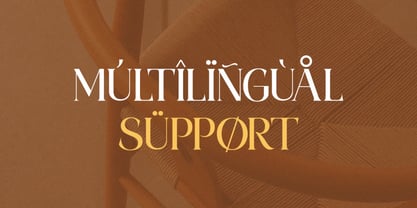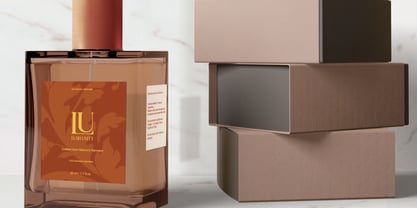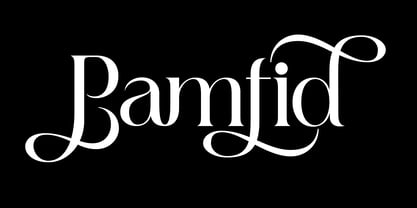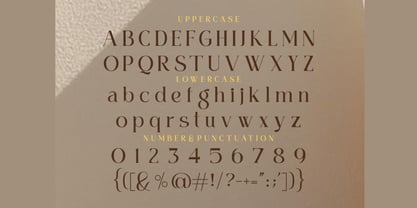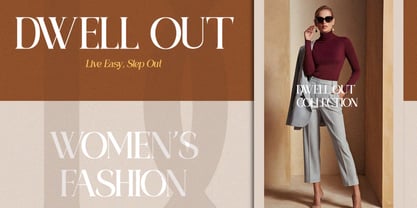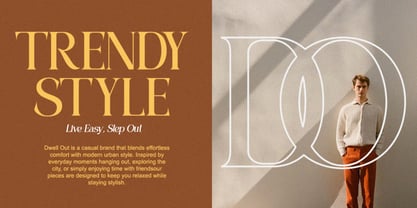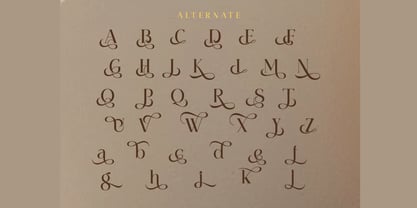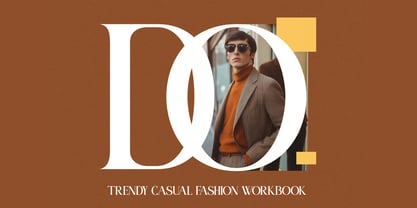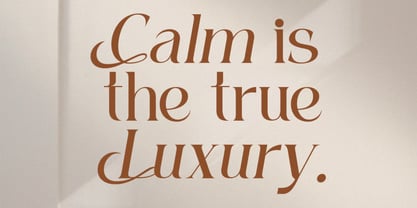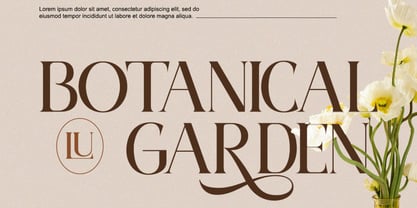
Pamfid
Pamfid is a modern stylish serif font crafted with refined curves, elegant swashes, and a sophisticated editorial aesthetic. Designed for creators who seek luxury, elegance, and visual distinction, Pamfid blends contemporary serif styling with timeless typographic beauty, making it an exceptional choice for premium branding and high-end creative projects.
Every character is carefully designed to create a strong visual presence while maintaining a polished and classy appearance. With its graceful letterforms, stylish ligatures, and artistic alternates, Pamfid offers the perfect balance between modern sophistication and editorial excellence.
Whether you're designing fashion campaigns, luxury packaging, boutique branding, magazine layouts, menswear identities, or premium advertising materials, Pamfid helps transform ordinary typography into a refined visual statement.
✿ Key Features:
• Modern Stylish Serif Design: Elegant letterforms with a contemporary luxury feel.
• Refined Curves & Elegant Swashes: Beautiful details that add sophistication and character.
• Alternates & Ligatures: Creative OpenType features for unique and expressive typography.
• Premium Editorial Aesthetic: Perfect for fashion publications and luxury branding.
• Uppercase & Lowercase Letters: Complete character set for versatile design applications.
• Multilingual Support: Includes accented characters for international projects.
• Strong Visual Presence: Designed to stand out in both print and digital media.
• High-End Typography: Crafted for premium creative and commercial projects.
✿ Perfect For:
• Fashion Branding & Menswear Identity: Create sophisticated and memorable brand experiences.
• Luxury Logo Design: Ideal for premium businesses, boutiques, and lifestyle brands.
• Editorial & Magazine Layouts: Stunning for headlines, covers, and feature articles.
• Luxury Packaging Design: Perfect for cosmetics, fragrances, fashion products, and boutique goods.
• Creative Advertising Campaigns: Deliver elegant and impactful visual communication.
• Wedding Invitations & Stationery: Add timeless beauty and refinement to special occasions.
• Social Media & Marketing: Design high-end promotional content with stylish typography.
Elevate your creative work with Pamfid—a modern stylish serif font featuring elegant swashes, artistic alternates, and luxurious editorial character. Perfect for fashion branding, boutique logos, luxury packaging, magazine layouts, creative advertising, and sophisticated visual identities.